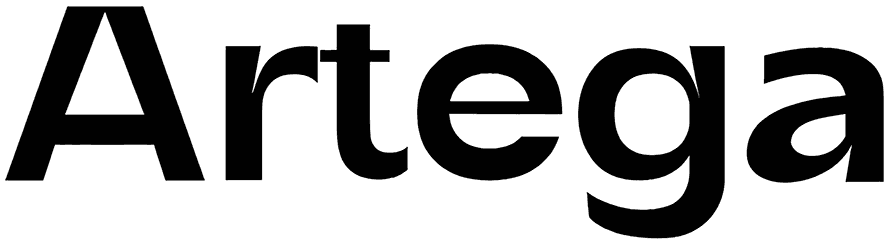
Artega Font
One of the most popular letterforms for any design is a sans-serif font like this one. The characters are modest and matchable, and surely you can count on them for formal or informal projects. The Artega font is an ageless option that you can use for an educational school poster, a restaurant billboard, or so forth.
Artega is a geometric sans serif font family that maintains consistency in the design of each letterform. The sharpness and logic of each shape allow for balance to be maintained in every form, resulting in a clean and perfect shape.